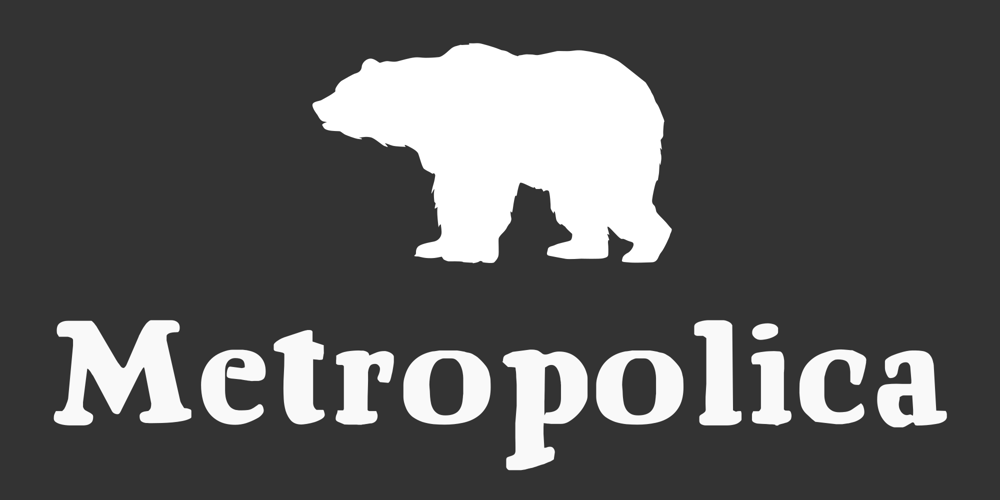
Metropolica Shadow
Metropolica Shadow font
Metropolica Shadow Font Family was designed by Paulo W and published by Intellecta Design. Metropolica Shadow contains 2 styles and family package options. Metropolica is a plakkat font, inspired in titglings from advertises from 1930’s